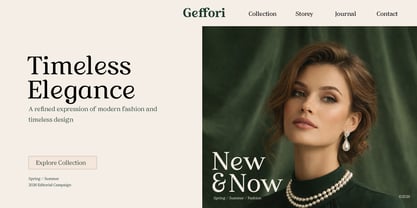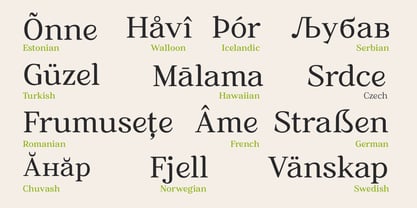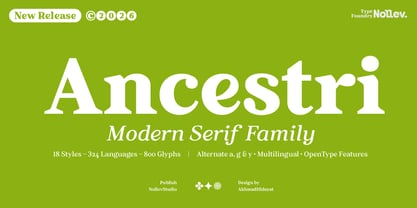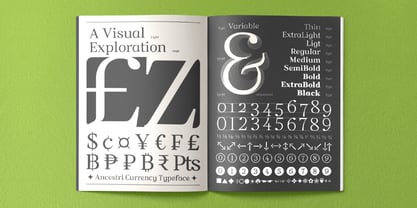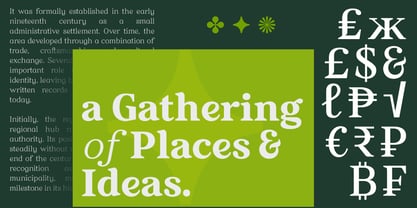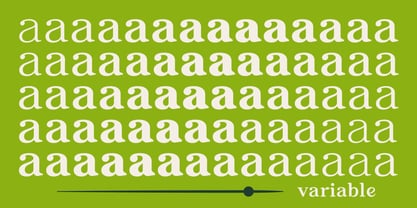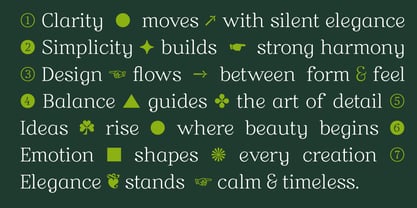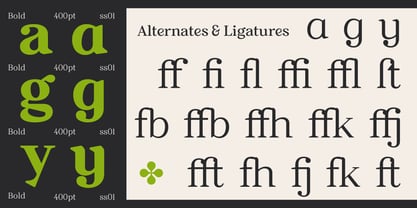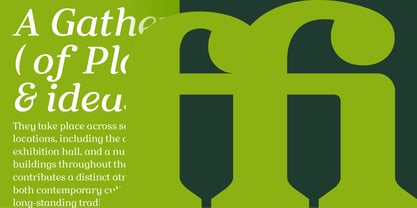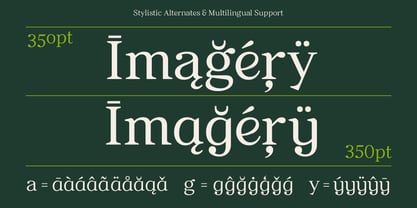
Ancestri
by Nollev
The Ancestri Font Family was designed by Akhmad Hidayat and published by Nollev. Ancestri contains 20 styles and family package options.
Ancestri is a modern serif typeface with an elegant and refined character. Designed with smooth curves and well-balanced proportions, it delivers a graceful and timeless appearance—perfect for branding, editorial design, logos, and luxury packaging. Its clean and highly readable structure also makes it suitable for longer texts and sophisticated typographic layouts, ensuring both beauty and functionality across various design needs. The family now includes 18 styles (with the addition of matching italics), offering greater versatility and creative freedom. It features over 800 glyphs and supports 324 languages, making it a powerful choice for global use. Ancestri also comes with standard ligatures and alternate characters for a, g, and y, allowing you to craft distinctive and expressive typography with ease.
Nollev is an independent type foundry specializing in modern and functional fonts for branding and graphic design. With a background in mockup design, we understand the importance of typography that is not only visually appealing but also practical for designers.The name Nollev was born from a creative exploration of unique and characterful visual identities. Our expertise lies in crafting modern serif, sans-serif, and display fonts, with a design approach that balances uniqueness and readability.At Nollev, we believe that typography is the foundation of strong visual communication. That is why each of our fonts is meticulously designed with attention to detail, proportion, and versatility, making them ideal for various creative projects.Our latest release, Wagiie, blends classic and modern elements to create an elegant and professional look. We are committed to developing high-quality typefaces that enhance branding and visual storytelling.